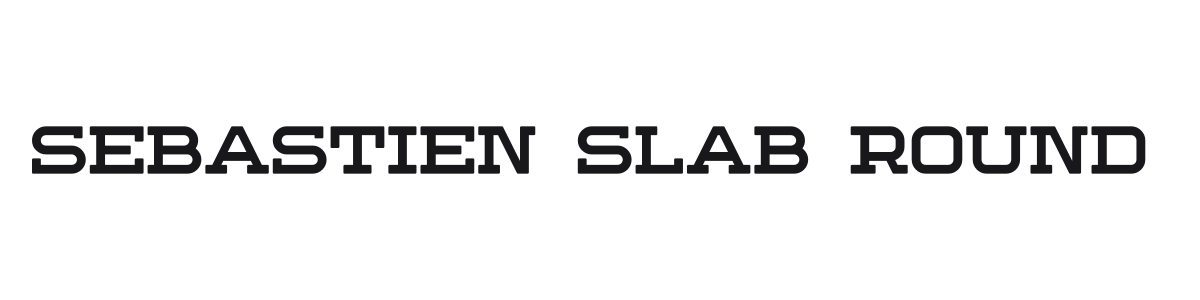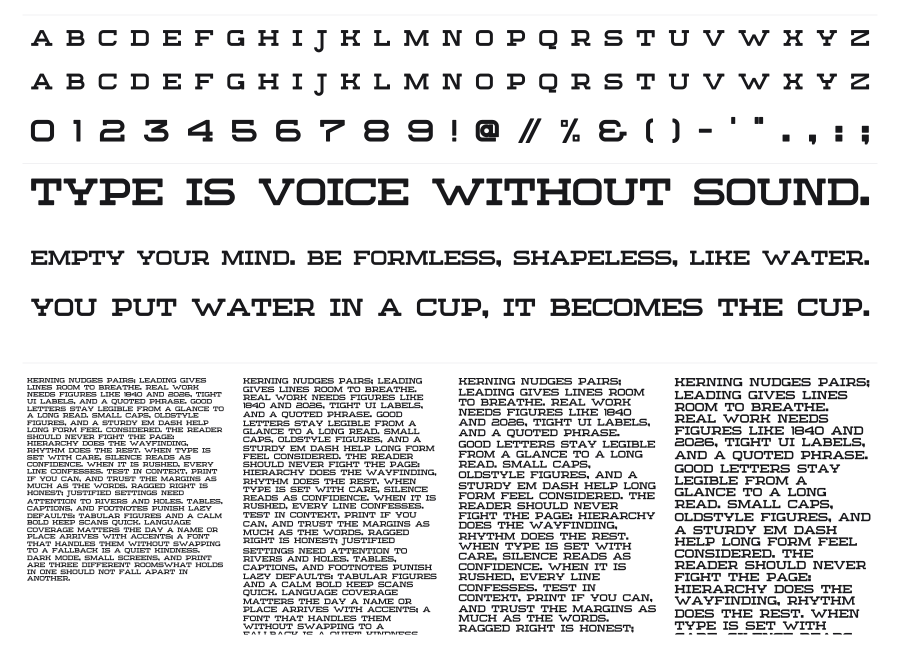
Sebastien Slab Round
Sebastien Slab Round is a bold Egyptian slab serif with rounded corners that soften its otherwise heavy, authoritative stance. The near-monoweight stroke and chunky serifs give it serious structural weight, while the rounded details keep it from feeling cold or rigid. It sits comfortably in sports branding, packaging, and any headline context that needs muscle with a bit of warmth.